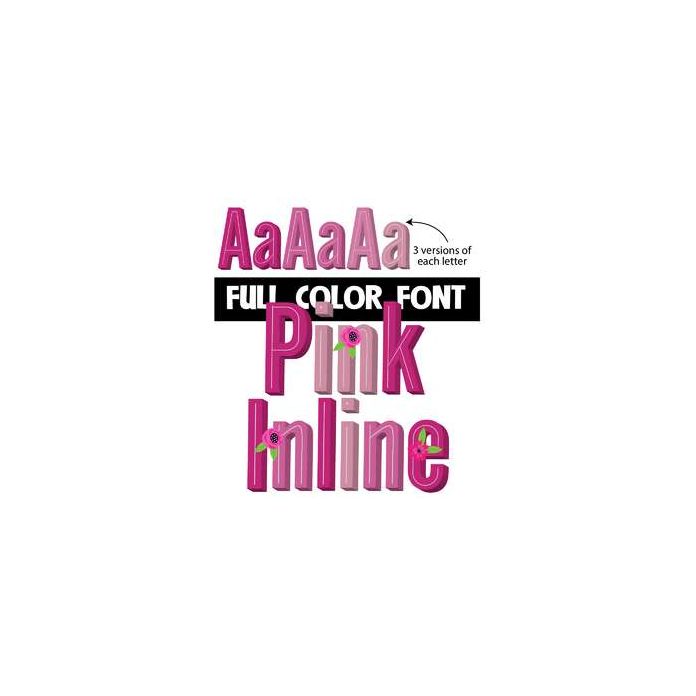
This full-color font features pink, 3-d letters. You can overlay floral elements by typing the greater or less than symbols. There are two additional cases in other pink colors you can access through Silhouette's glyph map.